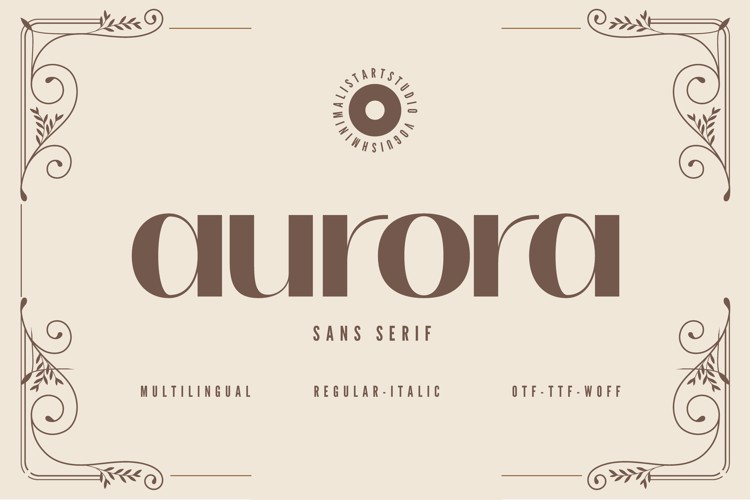
Aurora Font
๐จ Font Name: Aurora by Minimalist Art Studio
๐จ Font Description: Aurora is a bold sans serif with elegant geometry and multilingual supportโperfect for vintage branding, editorial layouts, and decorative packaging.